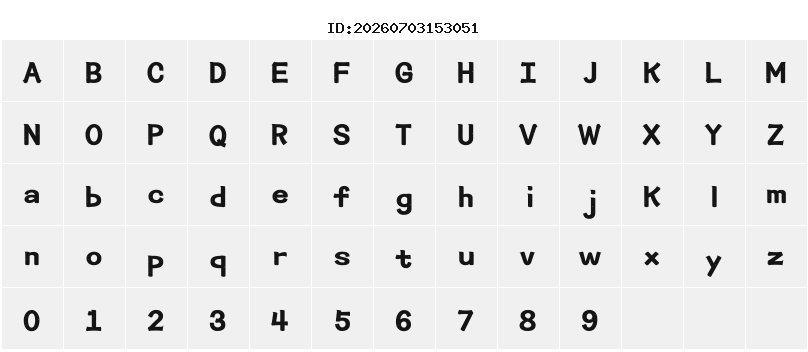
333-上首战马体 Preview
• Font Name: 333-上首战马体
• Full Font Name: 333-上首战马体
• Manufacturer: 上首造字
About 333-上首战马体.ttf
333-上首战马体.ttf is a modern, elegant sans-serif font designed for ultimate readability and visual harmony. Perfect for branding, headlines, web design, and print materials.